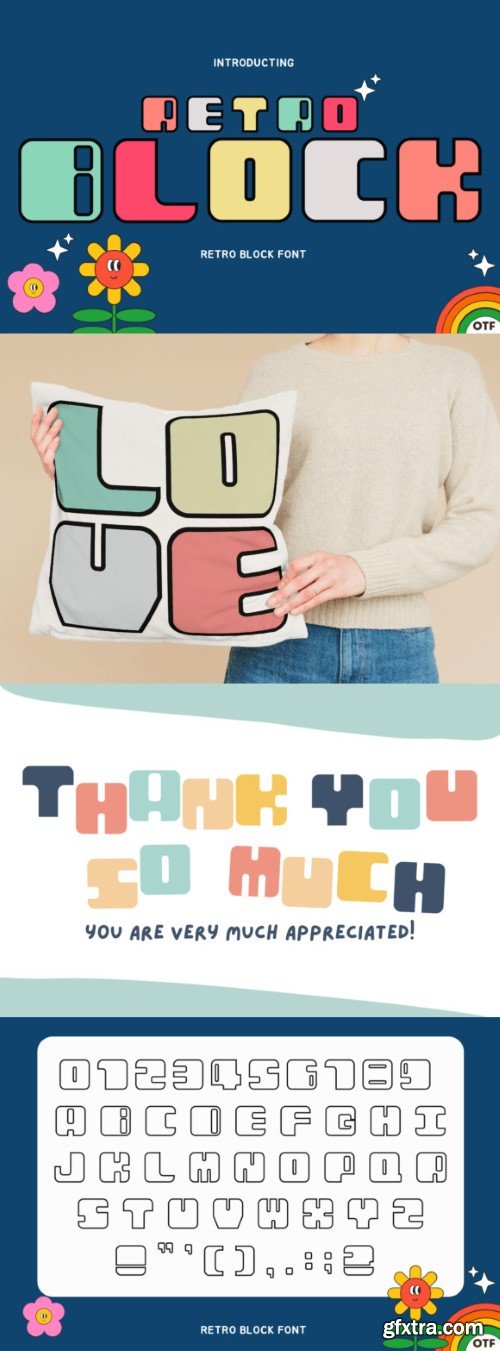
复古块状字体
Introducing Retro Block Font—a modern and stylish typeface perfect for a sleek and contemporary design. This versatile alphabet is ideal for creating posters, invitations, headers, titles, greeting cards, lettering, and more. Elevate your designs with the timeless charm of this font, turning each piece into a visually engaging and creatively crafted expression. Transform your projects into a celebration of retro aesthetics and modern flair with the uniquely designed and versatile Retro Block Font.